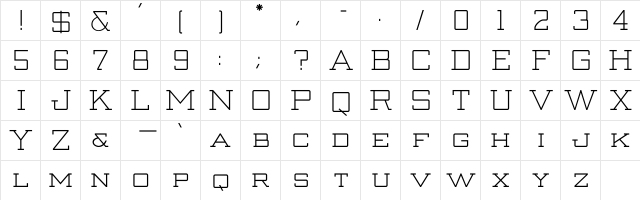
Bidwell-Normal Regular
Design Context for Bidwell-Normal Typeface
Bidwell-Normal takes a measured approach to typography — its balanced proportions and neutral character make it a reliable workhorse for both digital and print work.